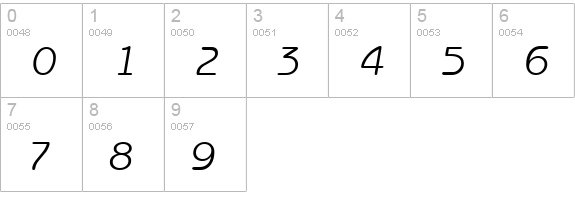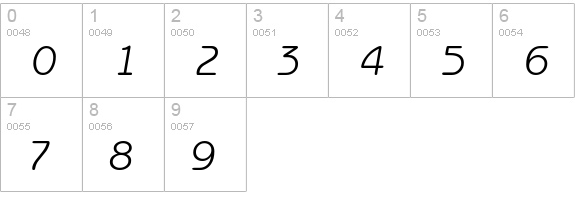
B691-Sans-Italic is a distinctive, italic variant in the B691 typeface family \xE2\x80\x94 well suited to design and typography projects.
B691-Sans-Italic is a sleek and modern typeface that exudes elegance and sophistication. Its italic variant adds a touch of flair and style to any design project. The slanted curves and unique letterforms of this font make it perfect for adding a contemporary aesthetic to logos, headlines, and branding materials. What sets B691-Sans-Italic apart is not only its aesthetic appeal but also its versatility. Whether used for print or digital media, this font delivers a polished and professional look that is sure to impress. Its legibility and readability ensure that your message will come across clearly and effectively to your audience. And the best part? B691-Sans-Italic is free for personal and commercial use! You can easily download this font from FontsMarket.com and start using it in your projects right away. Don't miss out on this fantastic opportunity to elevate your designs with a high-quality typeface that won't cost you a penny.